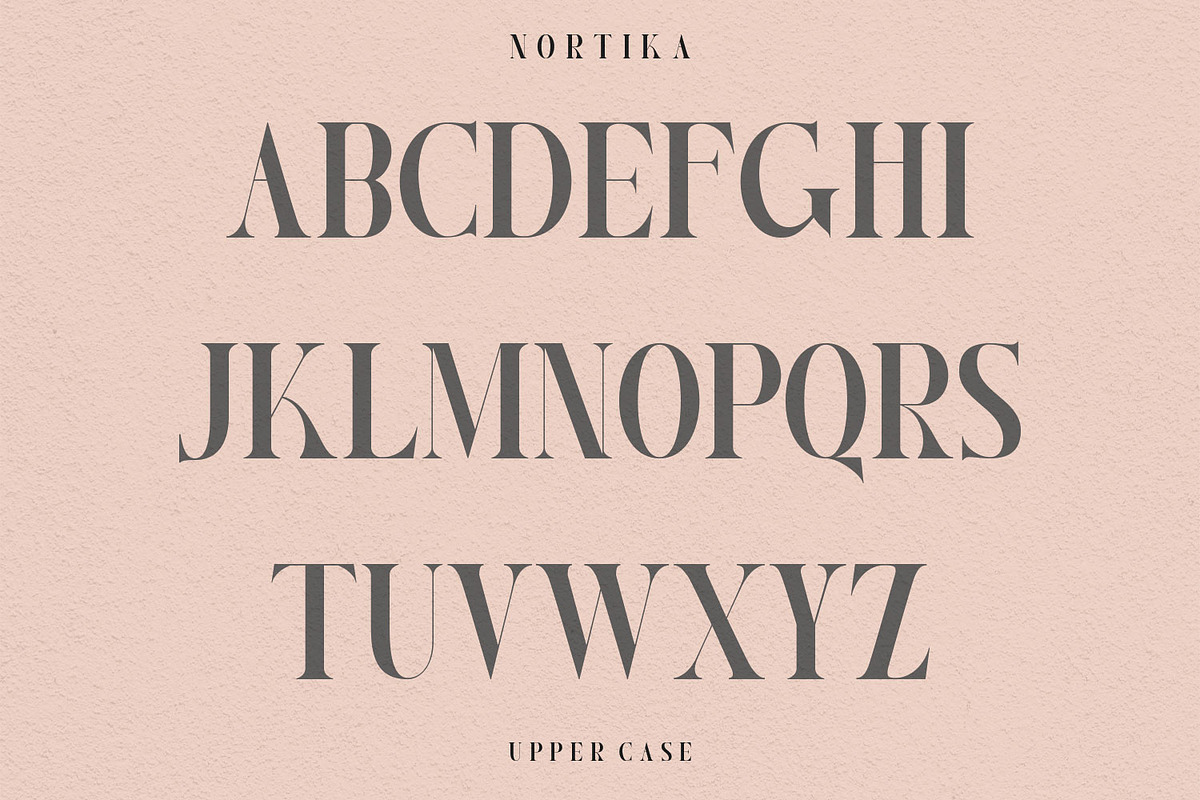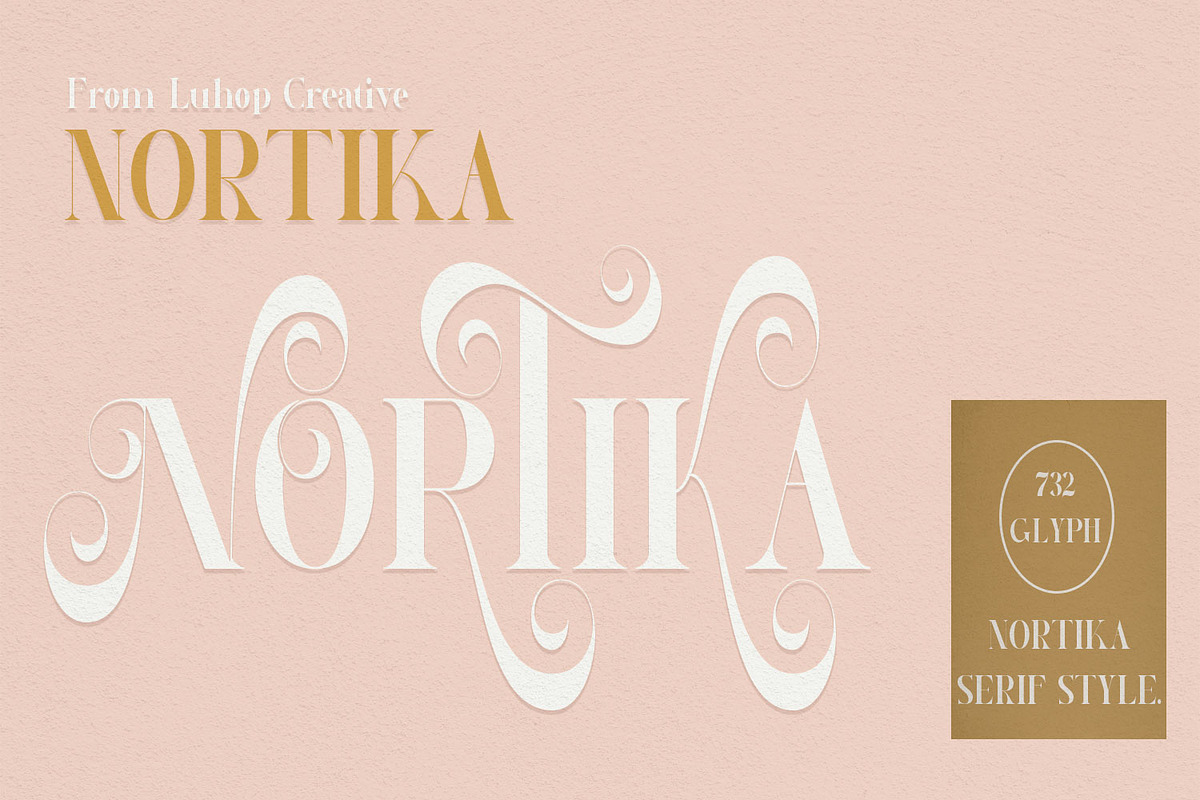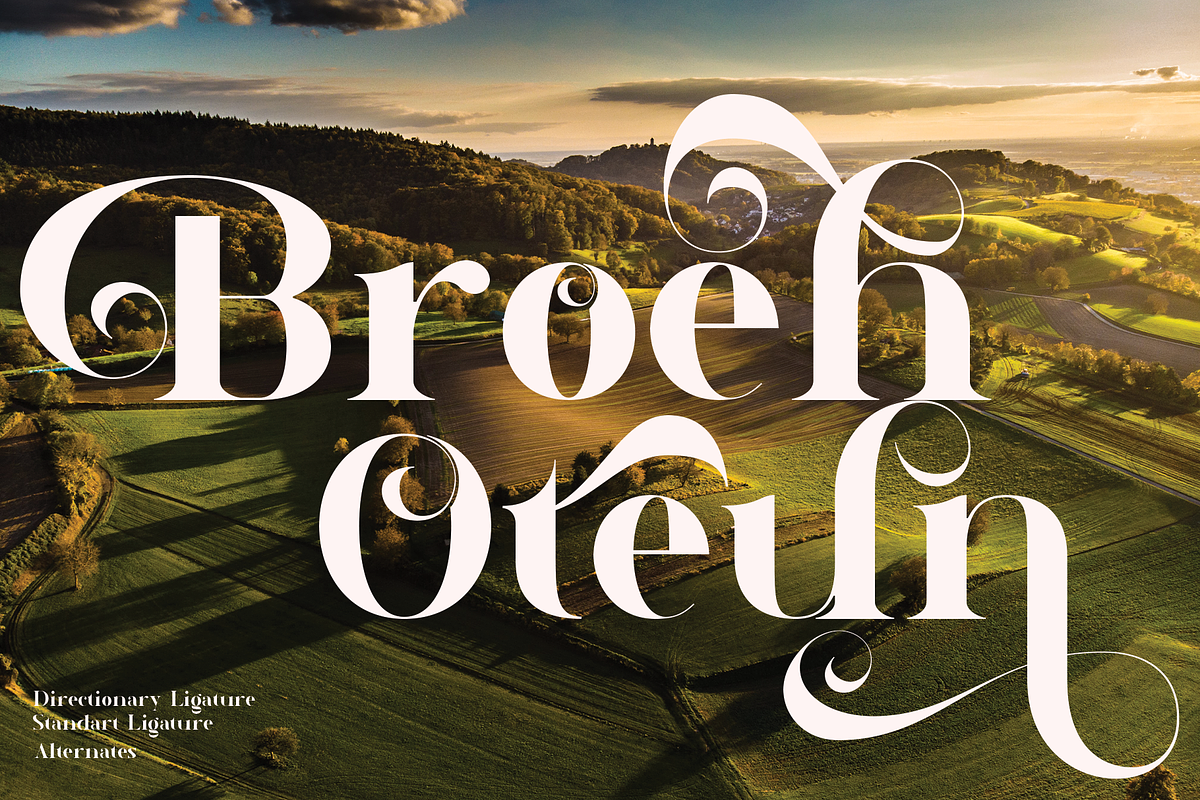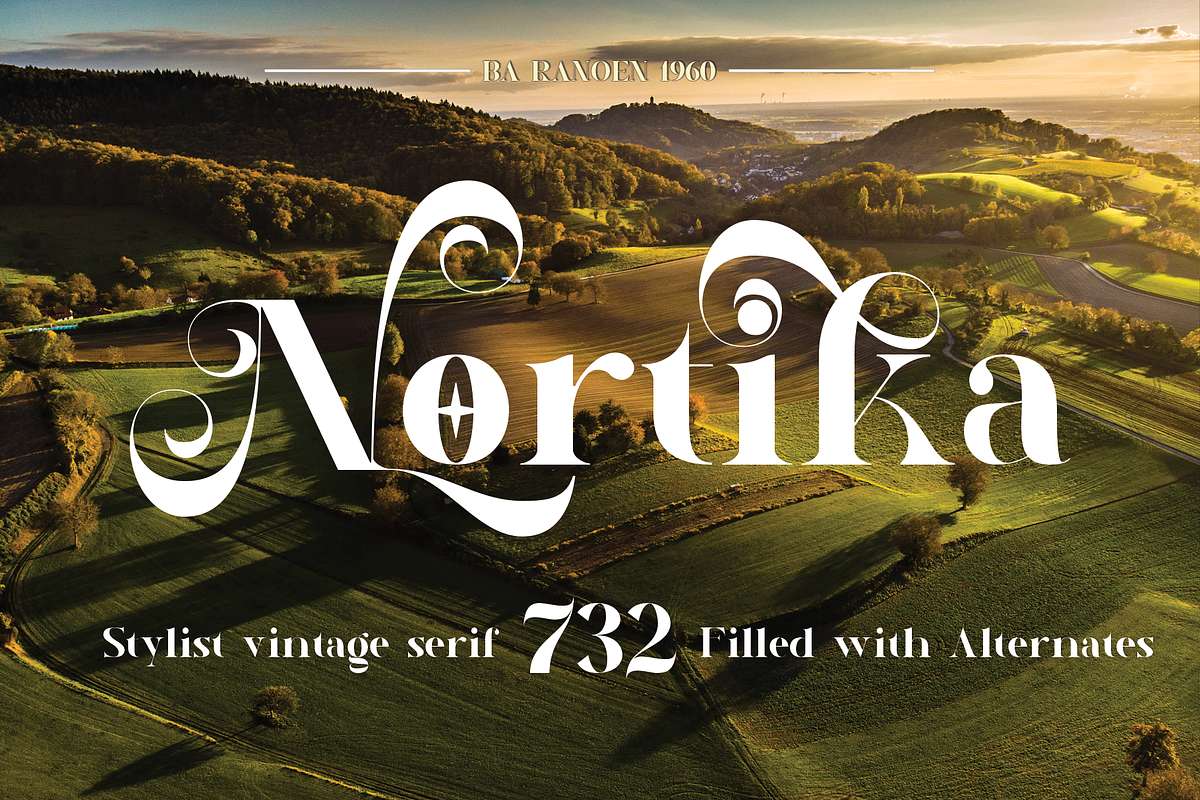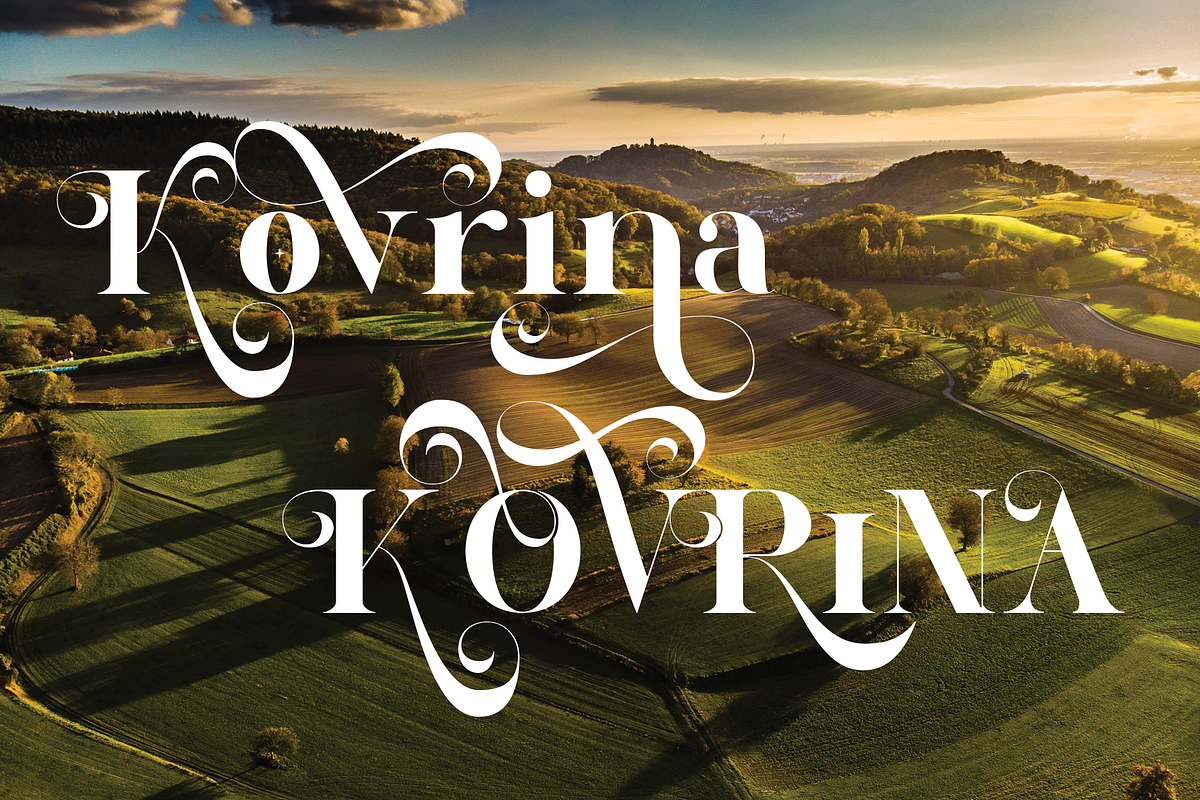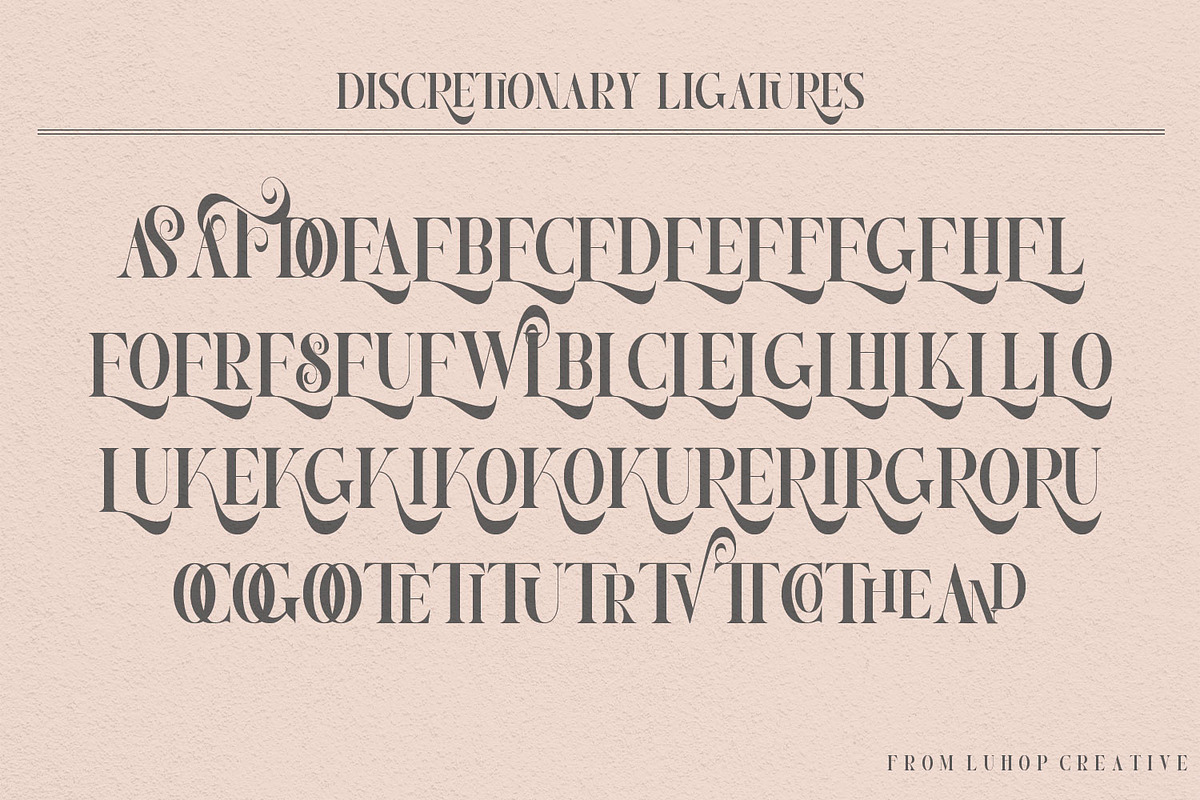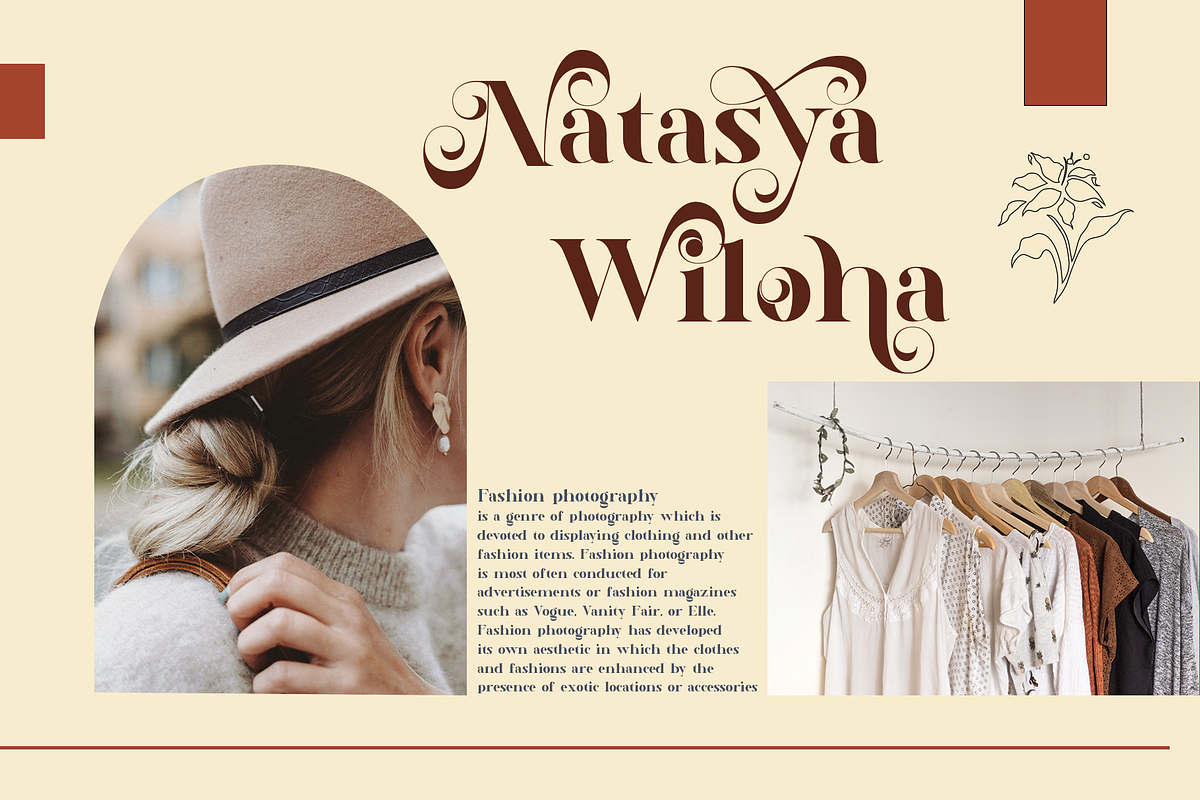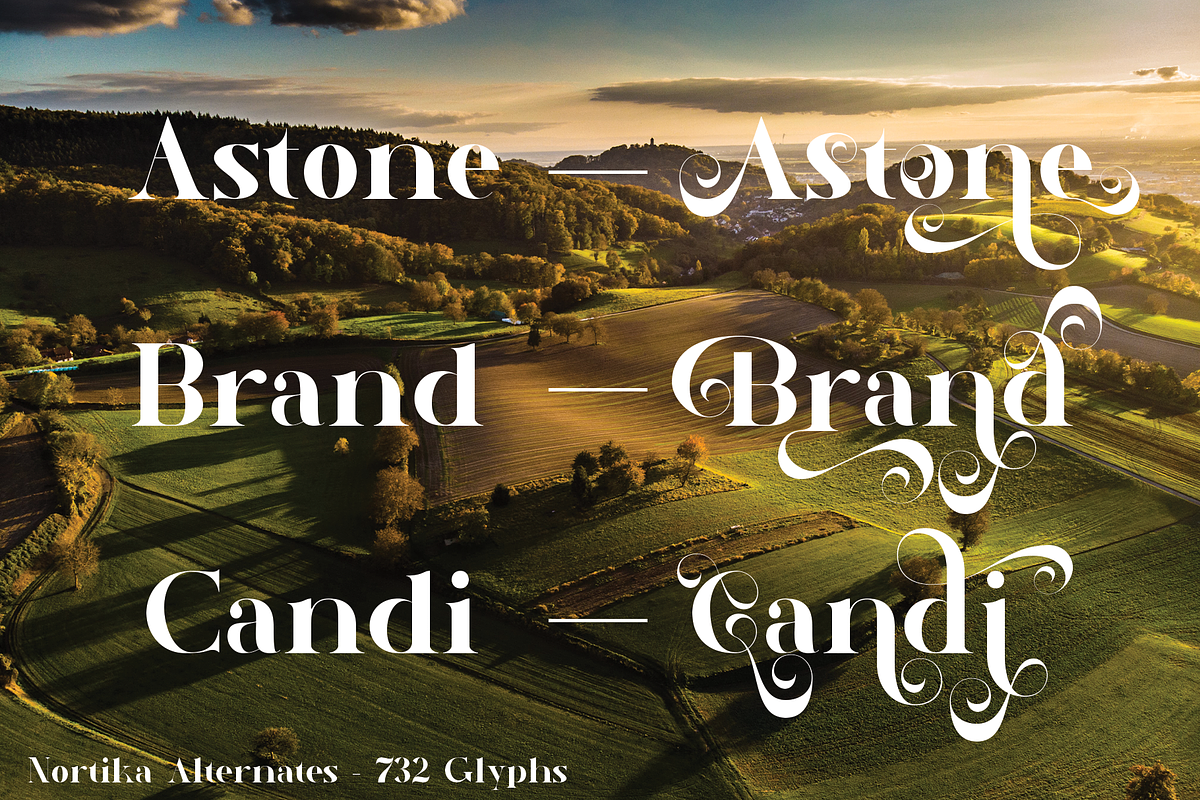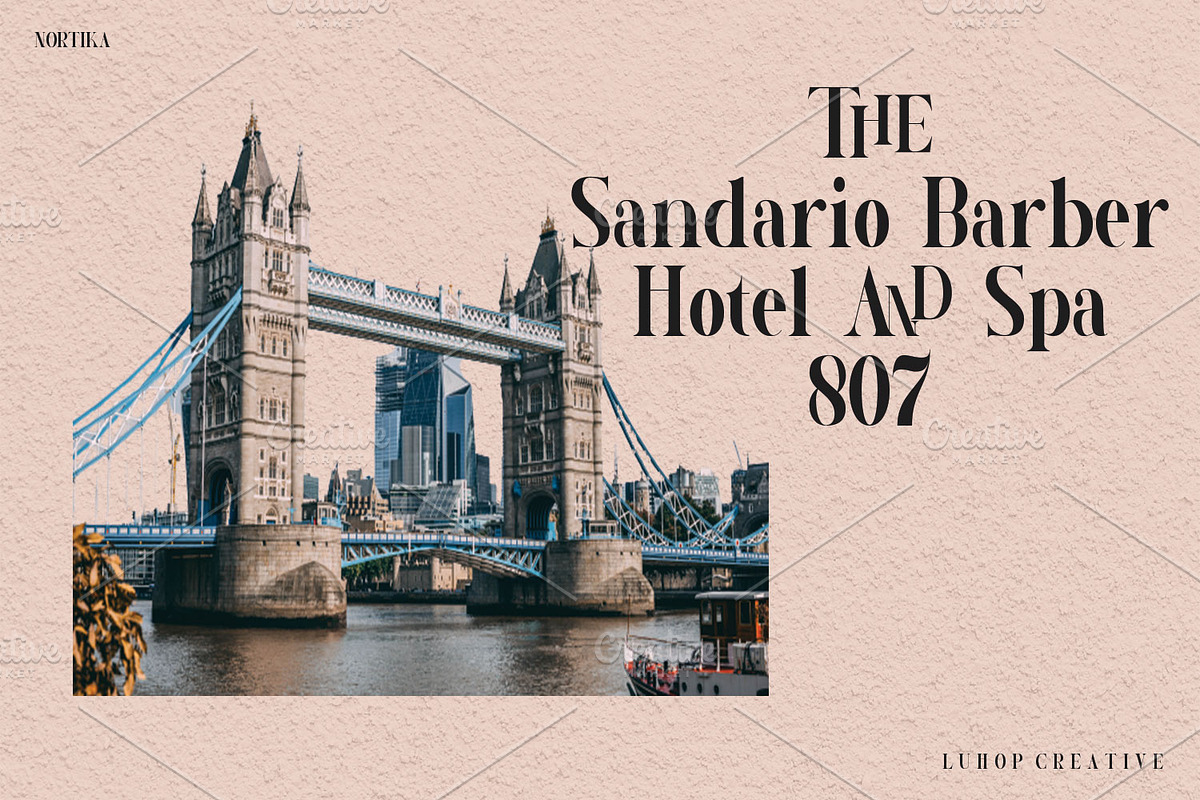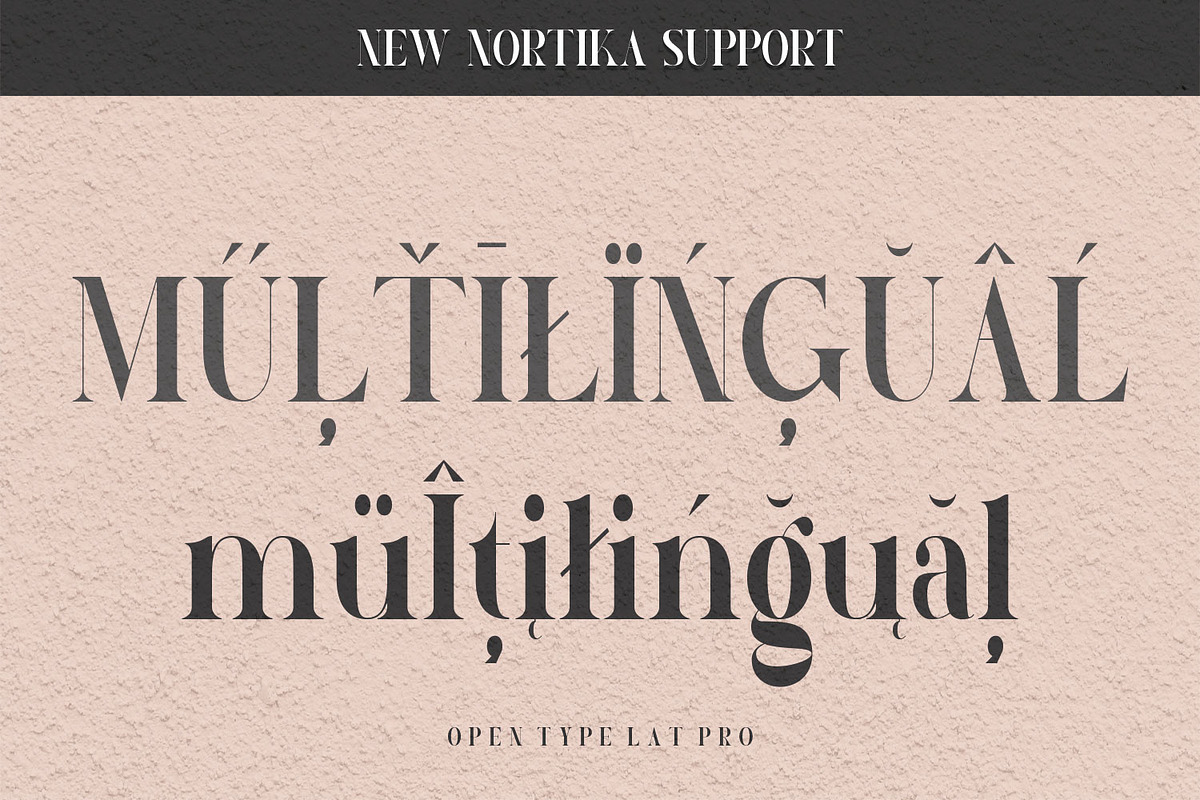
Nortika Serif Vintage Display
Nortika is a classy and distinct serif font. Add it confidently to your favorite creations and let yourself be amazed by the outcome generated. This font is PUA encoded which means you can access all glyphs and swashes with ease!
is also included full set of:
- Uppercase and lowercase letters
- Multilingual symbols
- Standard ligatures
- Discretionary Ligatures